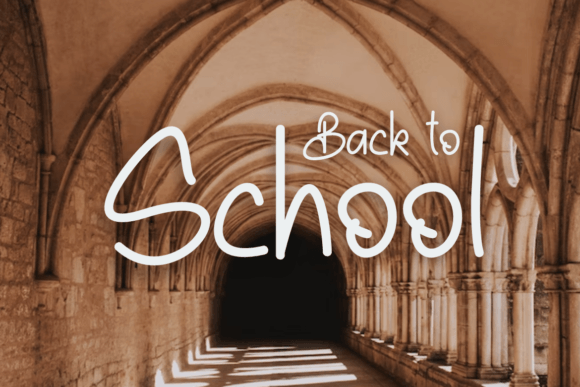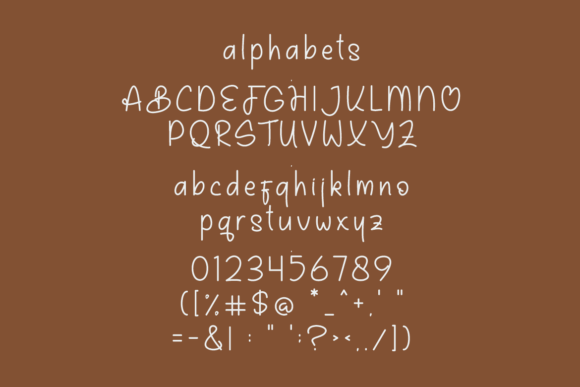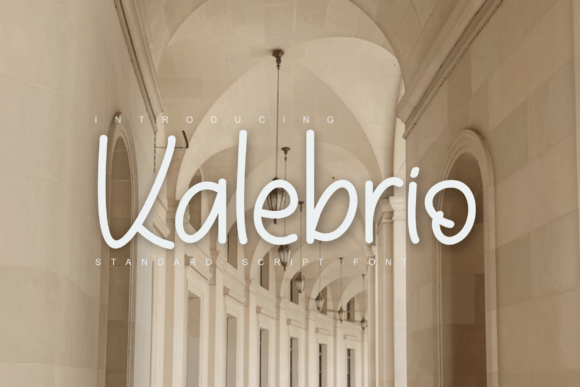
Kalebrio Font
About Kalebrio Font
**Kalebrio: The Cool and Friendly Handwritten Font**
*Kalebrio* is a delightful handwritten font that effortlessly balances a cool and friendly style. With its unique charm, this font is an excellent choice for various design projects that require a personalized and inviting touch.
One of the standout features of Kalebrio is its friendly and approachable appearance. The font’s characters are beautifully crafted with a natural flow, giving them a warm and welcoming feel. This inherent friendliness makes Kalebrio perfect for creating designs that resonate with people on a personal level.
When it comes to wedding invitations, Kalebrio shines brightly. Its friendly and inviting style sets the perfect tone for celebrating love and joyous occasions. Whether you’re designing wedding invites, thank-you cards, or even wedding signage, Kalebrio adds a heartfelt touch that makes recipients feel special.
Greeting cards are another area where Kalebrio excels. The font’s cool and friendly handwritten look makes it ideal for conveying warm wishes, congratulations, or heartfelt messages. Kalebrio turns ordinary cards into memorable keepsakes that people will treasure.
In logo design, Kalebrio brings a personalized and approachable vibe to brands. It’s a great choice for businesses and startups that want to convey a friendly and customer-centric image. The font’s casual yet stylish appearance makes it suitable for a wide range of industries, from creative agencies to food and beverage brands.
For quotes and social media graphics, Kalebrio’s unique charm can enhance your content. It adds a relatable and personal touch to inspirational quotes, humorous sayings, or motivational messages. These posts become more engaging and shareable, thanks to Kalebrio’s inviting style.
In summary, *Kalebrio* is a cool and friendly handwritten font that radiates approachability and warmth. Its versatility makes it an excellent choice for wedding invitations, greeting cards, logos, quotes, and various design projects where a personalized style is desired. Embrace Kalebrio’s inviting charm and let it elevate the appeal of your creations.